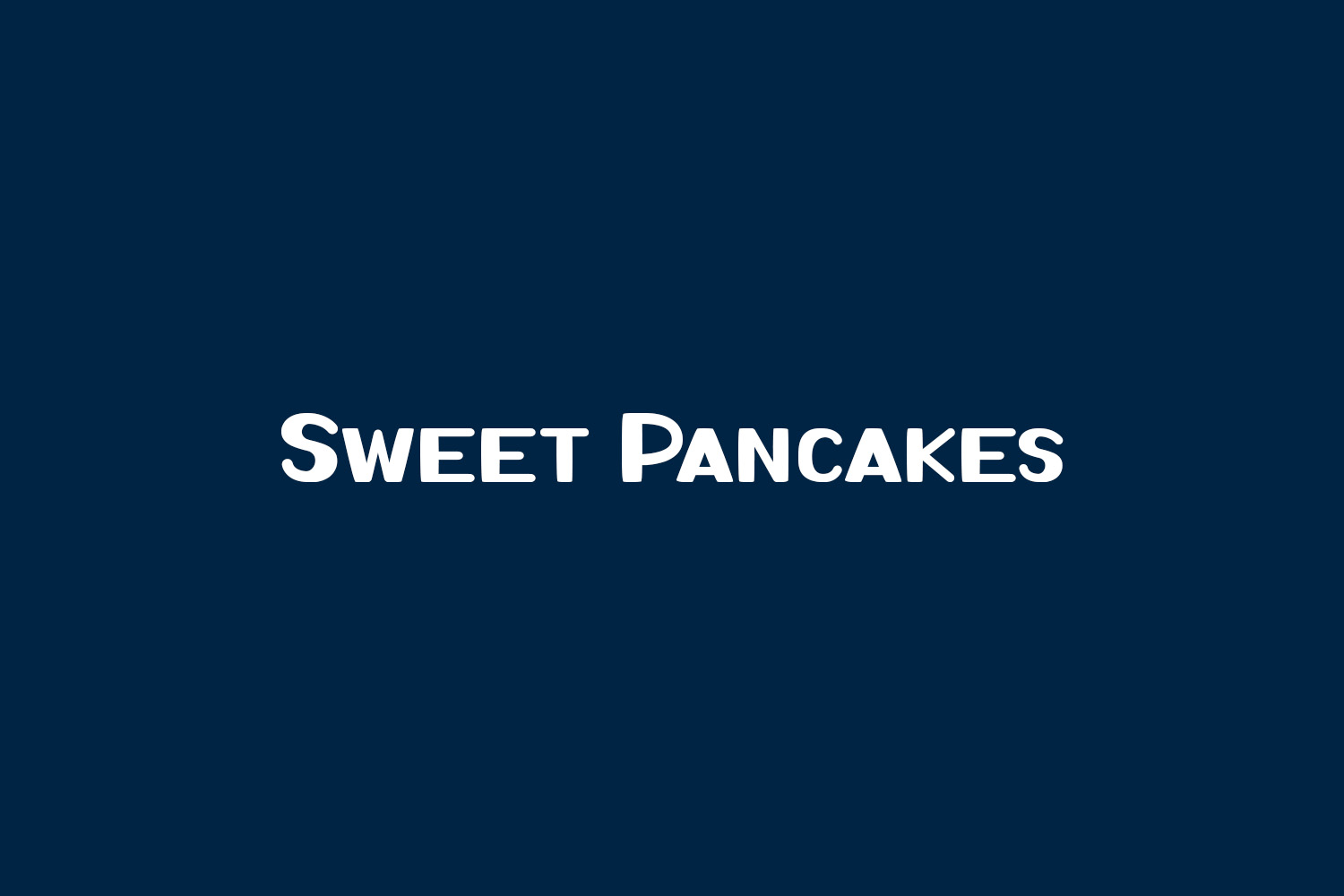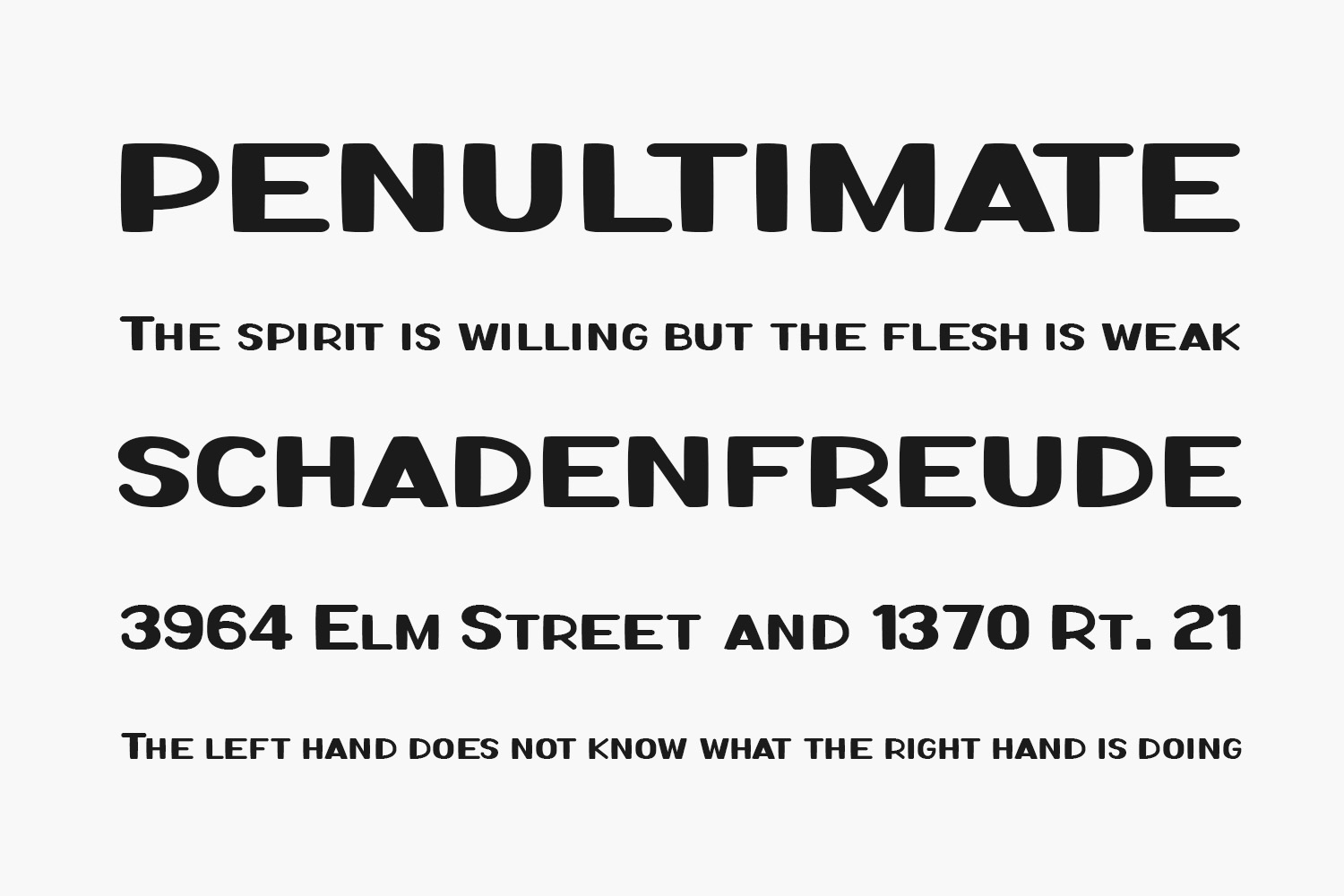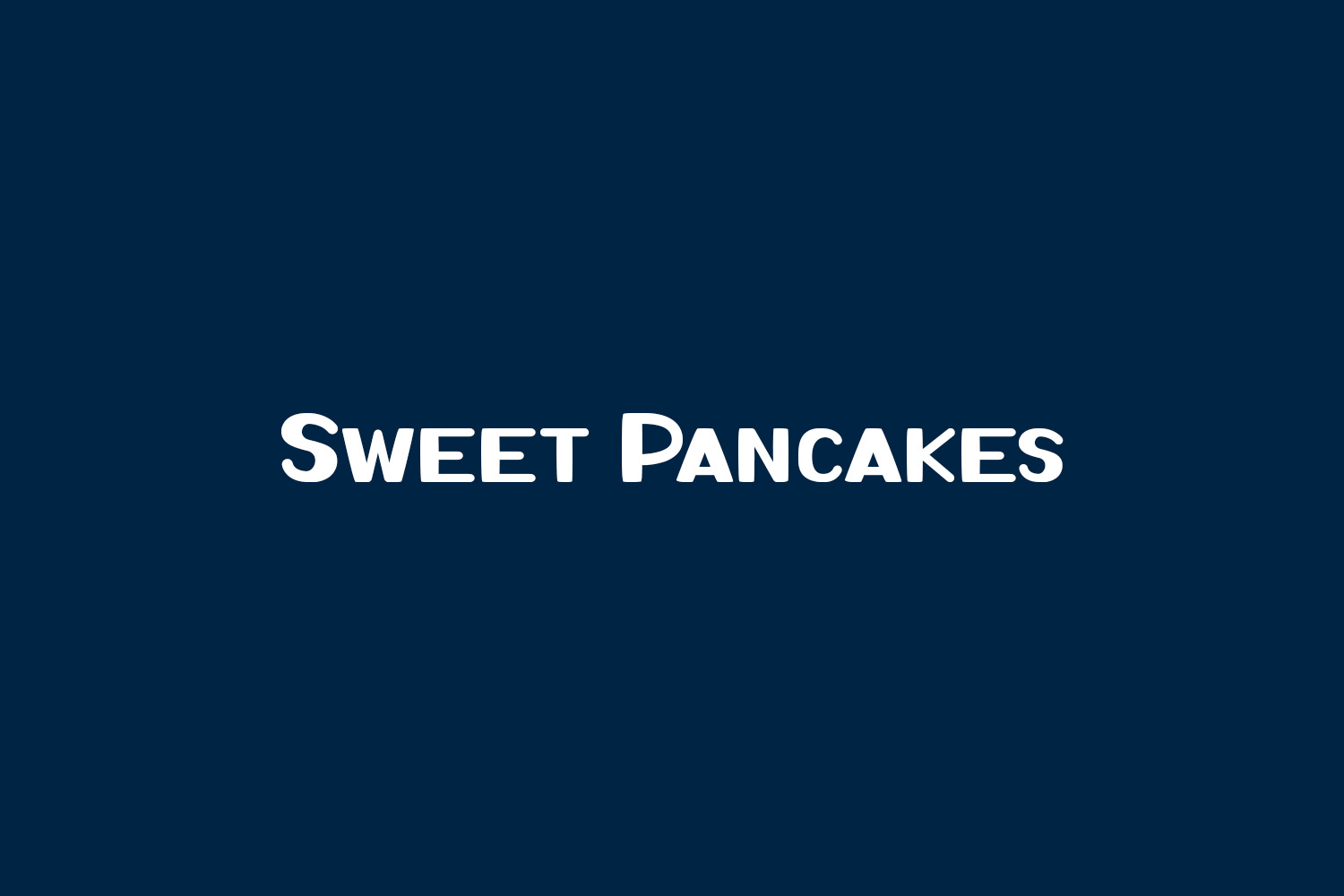
Sweet Pancakes Free Font is an incredibly cool display font. With a modern yet whimsical style, this font has the potential to bring each of your creative ideas to the highest level. Sweet Pancakes Free Font was designed by Chequered Ink and is free for personal use only. Please purchase the full version for commercial use.